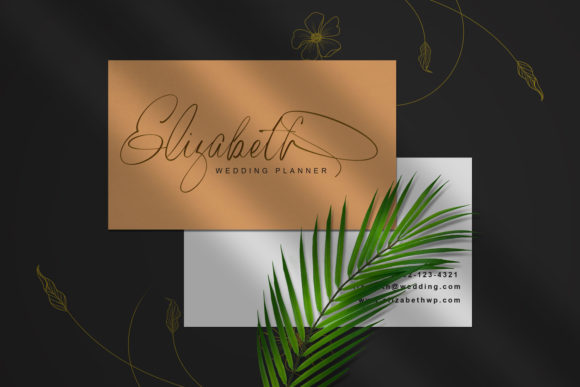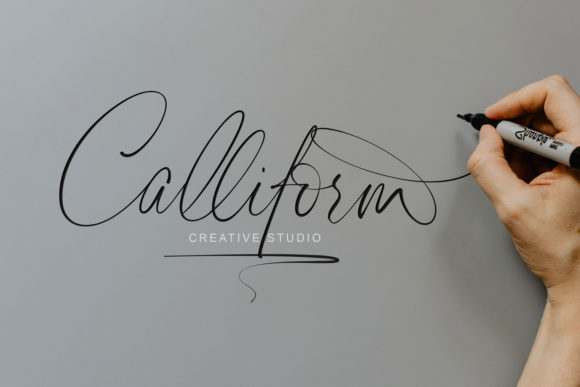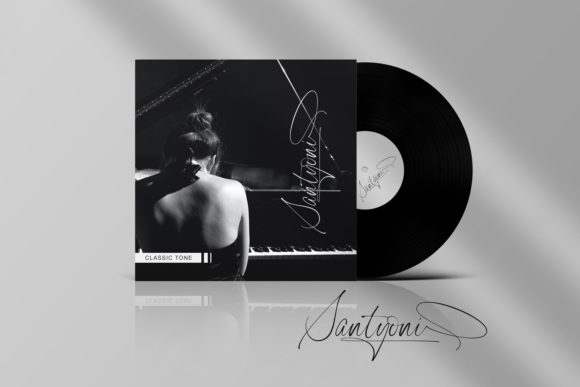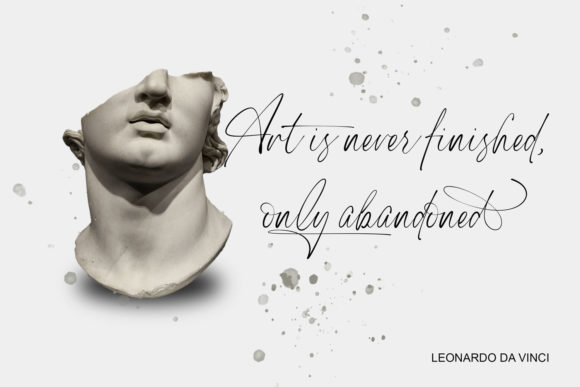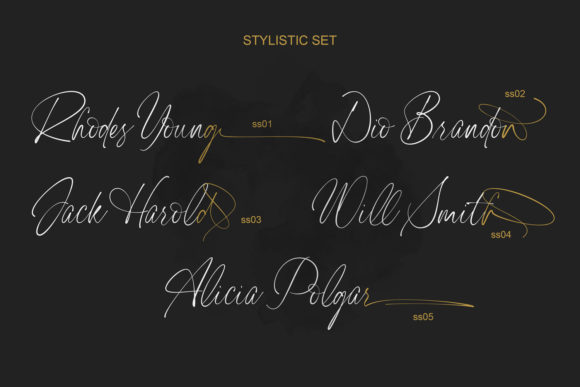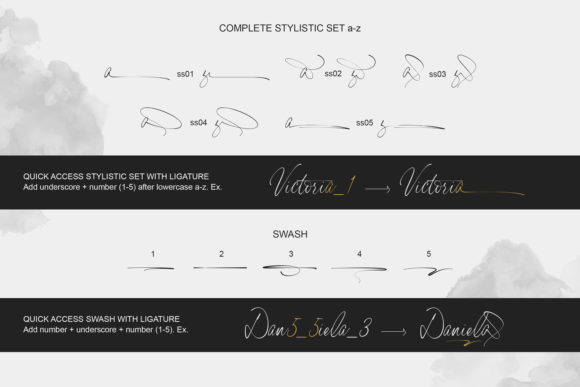
Introduction to Jhodes Font
Do you remember that moment when you’re working on a creative project and everything just falls into place? The colors are perfect, the text is readable, and the design feels cohesive. That’s what it’s all about – finding the right tools to bring your vision to life. For designers, having access to high-quality fonts can make all the difference.
Enter Jhodes Font, a stunning script font that’s sure to elevate your designs. With its thin letters and elegant feel, Jhodes Font is the perfect addition to any design resource. Whether you’re working on a branding project or creating a beautiful digital artwork, this font will help you achieve a professional and stylish look.
Key Features of Jhodes Font
- High-quality design: Jhodes Font is a premium design resource that offers a unique and sophisticated look for your creative project.
- Transparent background: This font features a transparent background, making it easy to use in various design applications.
- Resolution: Jhodes Font is optimized for high-resolution displays, with a resolution of 300 DPI for crisp and clear text.
- Unique characteristics: This font features a distinctive and elegant design, with a range of styles and weights to suit various design needs.
Honest Review: Jhodes Font
I recently stumbled upon the Jhodes Font, and I must say, it’s a great addition to any designer’s arsenal. As a free download, I was pleasantly surprised by the high quality of this design resource.
- Unique and creative design style that’s perfect for bold, eye-catching projects
- Highly legible and clear font, even at smaller sizes
- Transparent background makes it easy to combine with other design elements
- Wide range of languages supported, making it a versatile choice for international projects
- Limited font sizes and styles available, which may limit its use in complex projects
- May not be suitable for formal or corporate design projects due to its playful, creative style
Overall, I’m impressed with the Jhodes Font. It’s a great choice for creative projects where you need a bold, eye-catching font. While it may have some limitations, its unique design style and high quality make it a valuable addition to any designer’s toolkit.
The Jhodes Font is ideal for creative projects that require a high-quality, transparent background. It’s perfect for designing logos, icons, and graphics for websites, social media, and marketing materials.
To get the most out of the Jhodes Font, use it in combination with other design resources, such as high-quality images and graphics. Experiment with different font sizes, colors, and styles to achieve the desired look. Additionally, use the font in a transparent background to create a clean and modern design.